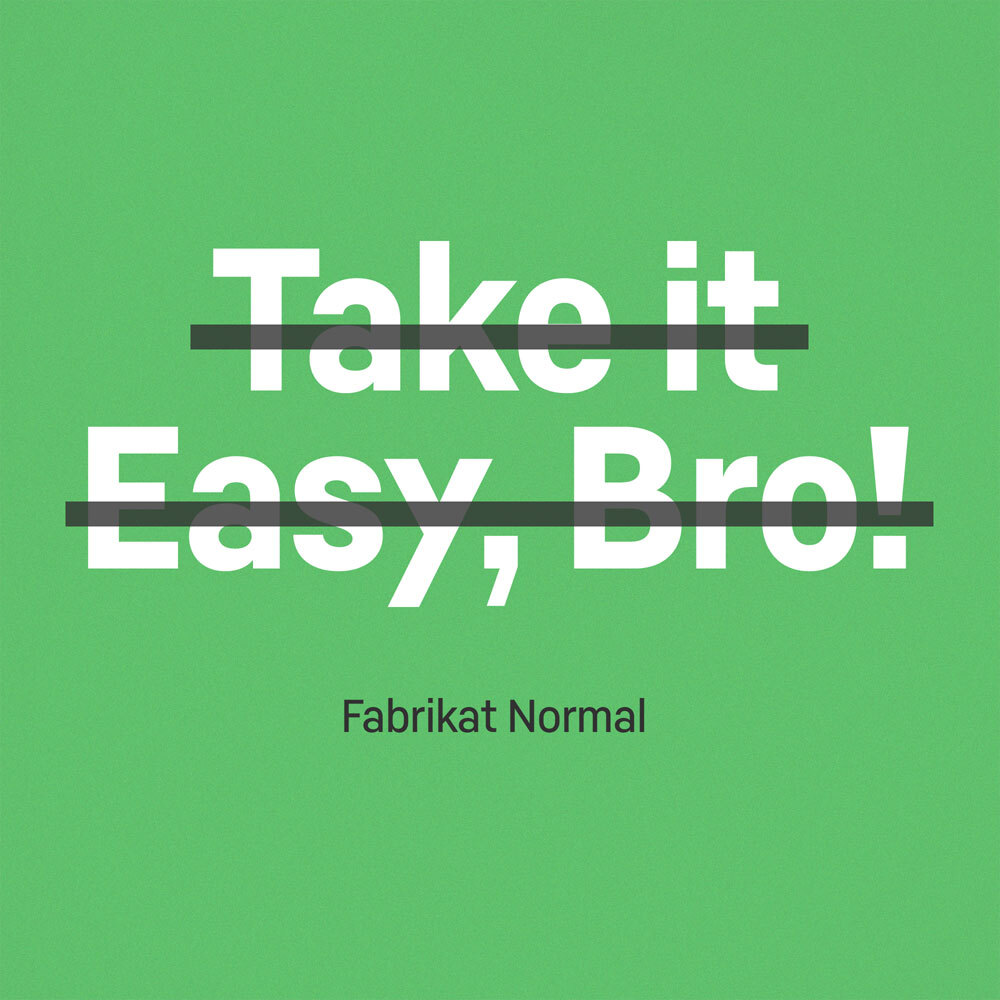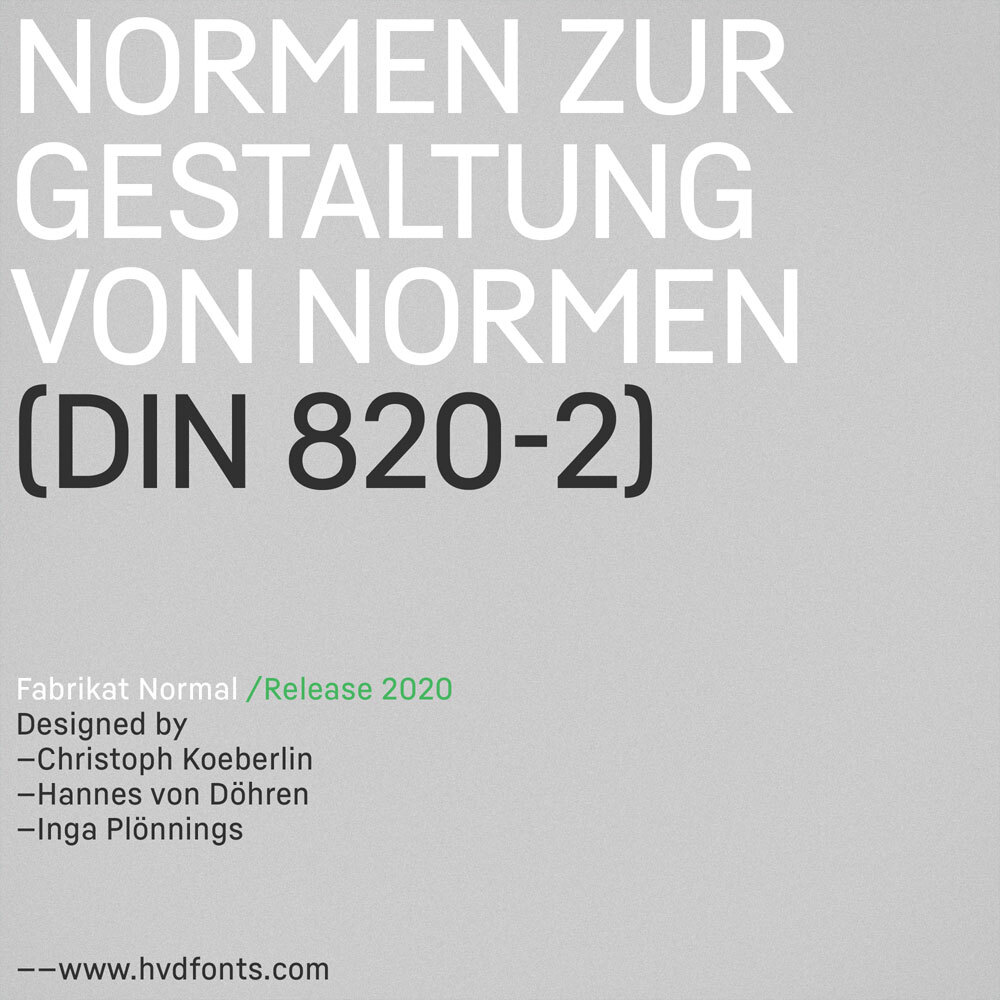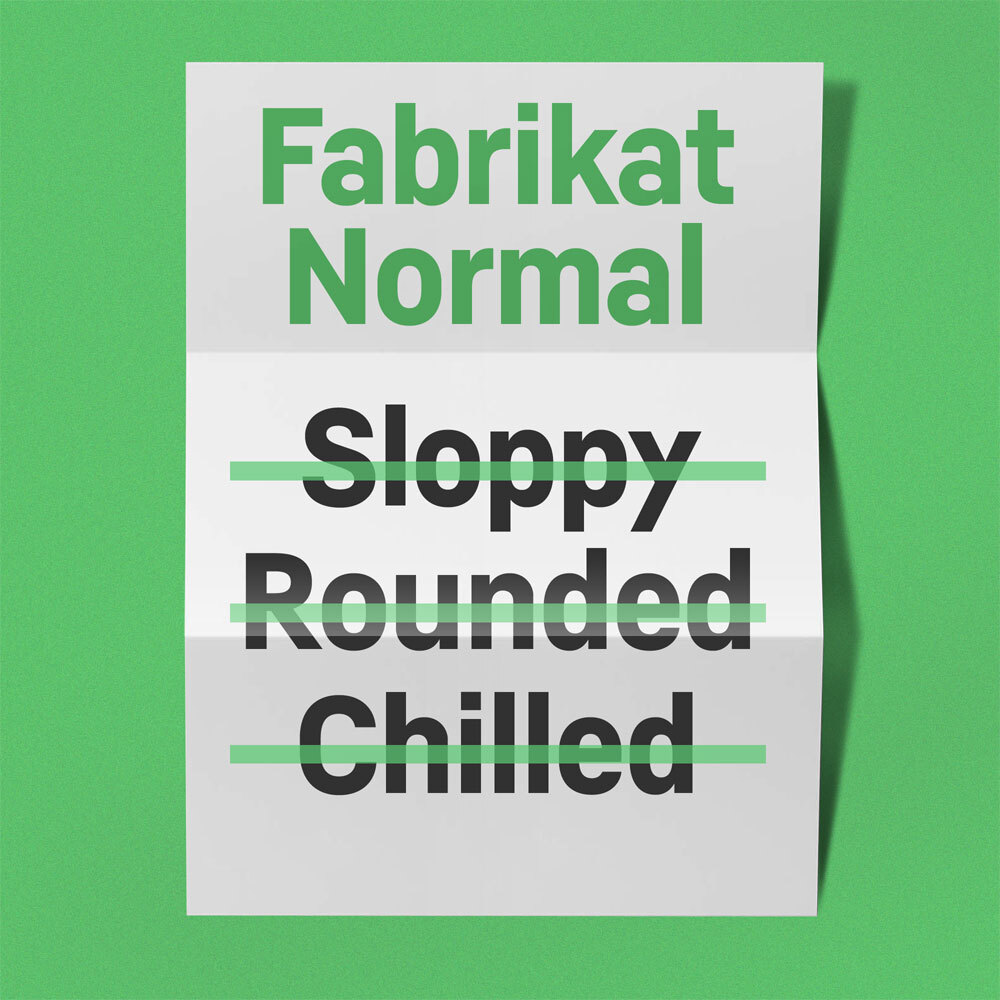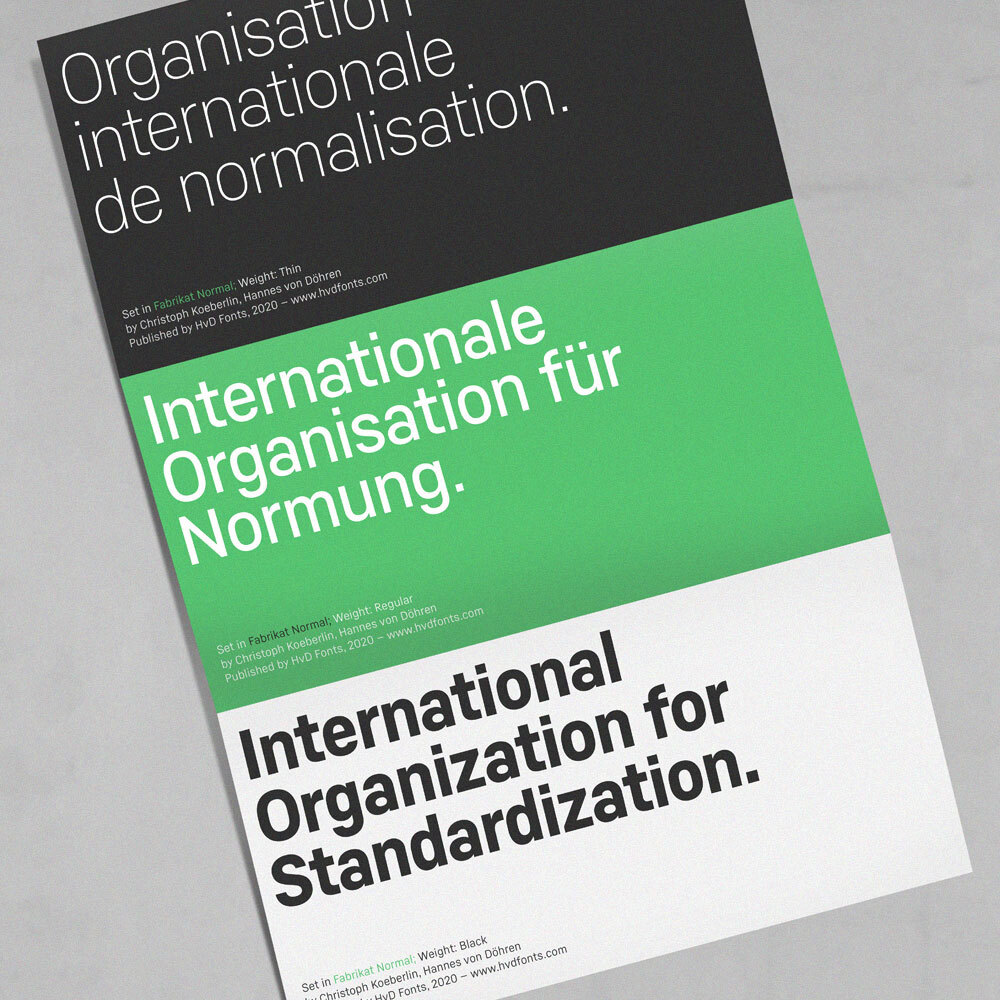
Fabrikat Normal is a geometric typeface which is based on 20th century German engineers’ typefaces. It is optimised for small sizes and long texts, but due to its constructed architecture it also works in headlines or display use. You can combine Fabrikat Normal with the more straight and space saving Fabrikat Kompakt or the reduced to the max Fabrikat Mono.
When we designed the first version of Fabrikat (2016), we created an engineers typeface: Constructed, functional and geometric. Fabrikat was a success and a good choice for designers to create logos, posters and corporate designs. One year later we added Fabrikat Mono to take the approach of simplicity and reduction even further. As more and more people fell in love with the look of Fabrikat, we felt that there is a need for a more “normal” version that can be used as a workhorse for long texts and complex typographic challenges. This new version had to be pushed into a slightly more general typeface, without losing the basic concept. We softened the strong characteristics like the the narrow and vertical architecture of the “original” and added more space to the letterforms – a big step towards legibility in small texts. With the help of Inga Plönnigs we managed to finish this big type project within one year: Hello Fabrikat Normal!
A geometric sans O (e.g. in FF Mark) is usually based on a circle and consists only of curves. The architecture of Fabrikat is different: All round characters like “O” “G” or “C” have a straight vertical part in the middle. The goal was a space-saving, constructed typeface without losing the geometric appearance.